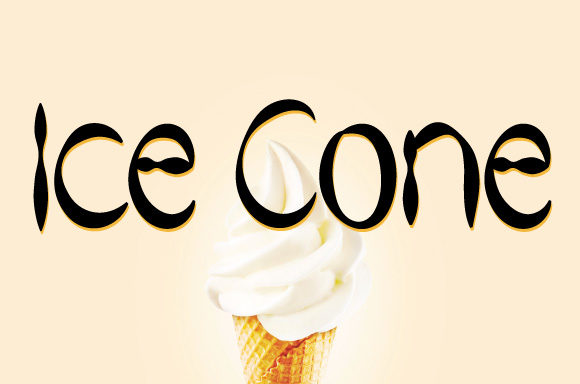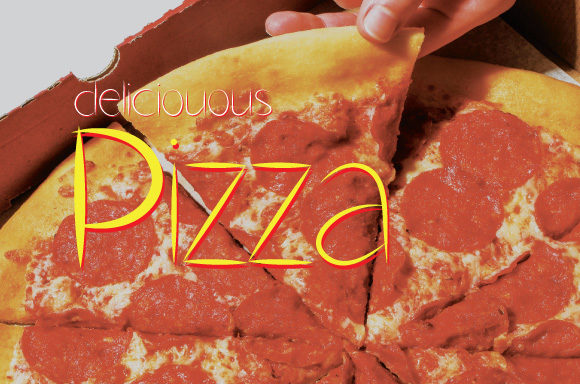
Introduction to Quizto Font
Quizto is an elegant and smooth handwritten font.
| 👤 Author | Dedi Art Studio |
It is the best font for creating eye catching logos, branding and quotes Every letter has a neat and round touch, which will make your design come alive.
Key Features of Quizto Font
Why Choose Quizto Font?
Quizto Font offers exceptional quality and versatility, making it a valuable addition to your design toolkit. Whether you’re creating for personal projects or commercial use, Quizto Font delivers professional results.